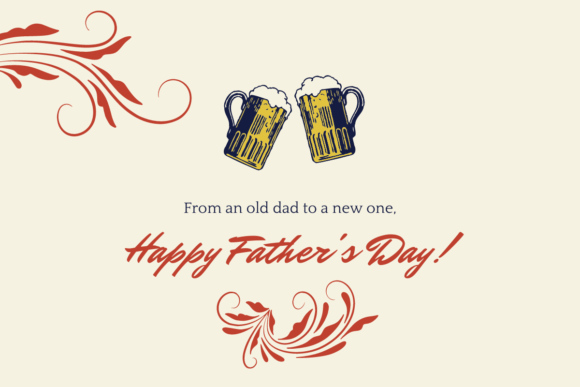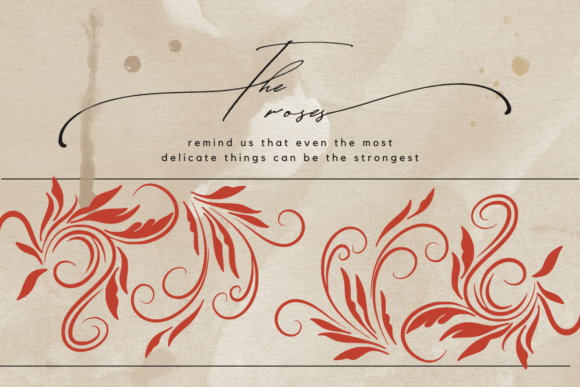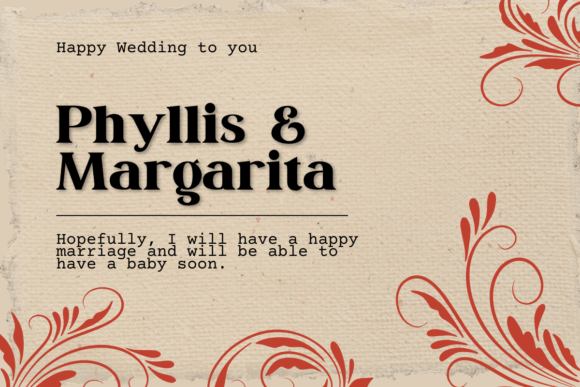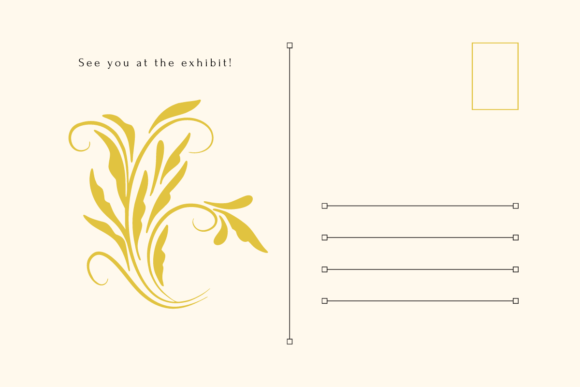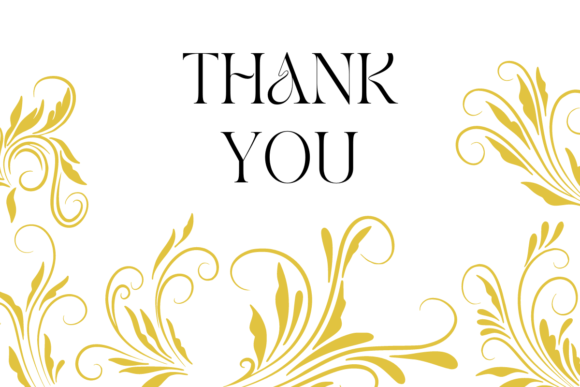
Introducing Flourish Font: Elevate Your Designs with a Modern Twist
Are you tired of using the same old fonts in your designs? Look no further! Flourish Font is a game-changing Dingbat Font that will instantly give your creations a modern, unique, and fun edge. With its versatility and wide range of applications, Flourish Font is perfect for designers, crafters, and DIY enthusiasts alike.
What is Flourish Font?
Flourish Font is a specially designed Dingbat Font that features intricate and stylish flourishes, perfect for adding a touch of elegance and whimsy to your designs. Its unique and modern aesthetic makes it an excellent choice for a wide range of projects, from quotes and posters to stickers, DIY projects, and more.
Flourish Font is incredibly versatile and can be used in various design projects, including:
- Quotes: Add a touch of sophistication and style to your inspirational quotes and phrases.
- Posters: Create eye-catching posters for events, promotions, or announcements.
- Stickers: Design fun and quirky stickers for laptops, water bottles, or any other surface.
- DIY Projects: Add a personal touch to your DIY projects, such as crafts, decorations, or gifts.
- Mugs: Create unique and personalized mugs for yourself or as gifts.
- Packaging: Elevate your product packaging with a touch of elegance and sophistication.
- Greeting Cards: Design beautiful and heartfelt greeting cards for special occasions.
- Tattoos: Create custom tattoo designs with a personal touch.
- T-Shirts: Design stylish and comfortable t-shirts for yourself or as gifts.
- Patterns: Create intricate and beautiful patterns for use in various design projects.
- Art: Use Flourish Font as a creative element in your artwork, such as illustrations, paintings, or digital art.
- Scrapbooking: Add a touch of elegance and whimsy to your scrapbooking projects.
- Tags: Design custom tags for gifts, luggage, or any other use.
Why Choose Flourish Font?
Flourish Font offers several benefits that make it an excellent choice for designers and crafters:
- Unique and Modern Aesthetic: Flourish Font features a distinctive and stylish design that will set your creations apart from the rest.
- Versatility: With its wide range of applications, Flourish Font is perfect for various design projects.
- High-Quality Design: Flourish Font is designed with high-quality and intricate details, ensuring that your designs look professional and polished.
Tips and Tricks for Using Flourish Font
To get the most out of Flourish Font, here are some tips and tricks:
- Experiment with Different Sizes and Colors: Play around with different sizes and colors to find the perfect combination for your design.
- Mix and Match with Other Fonts: Combine Flourish Font with other fonts to create a unique and interesting design.
- Use it for Headings and Titles: Use Flourish Font for headings and titles to add a touch of elegance and sophistication.